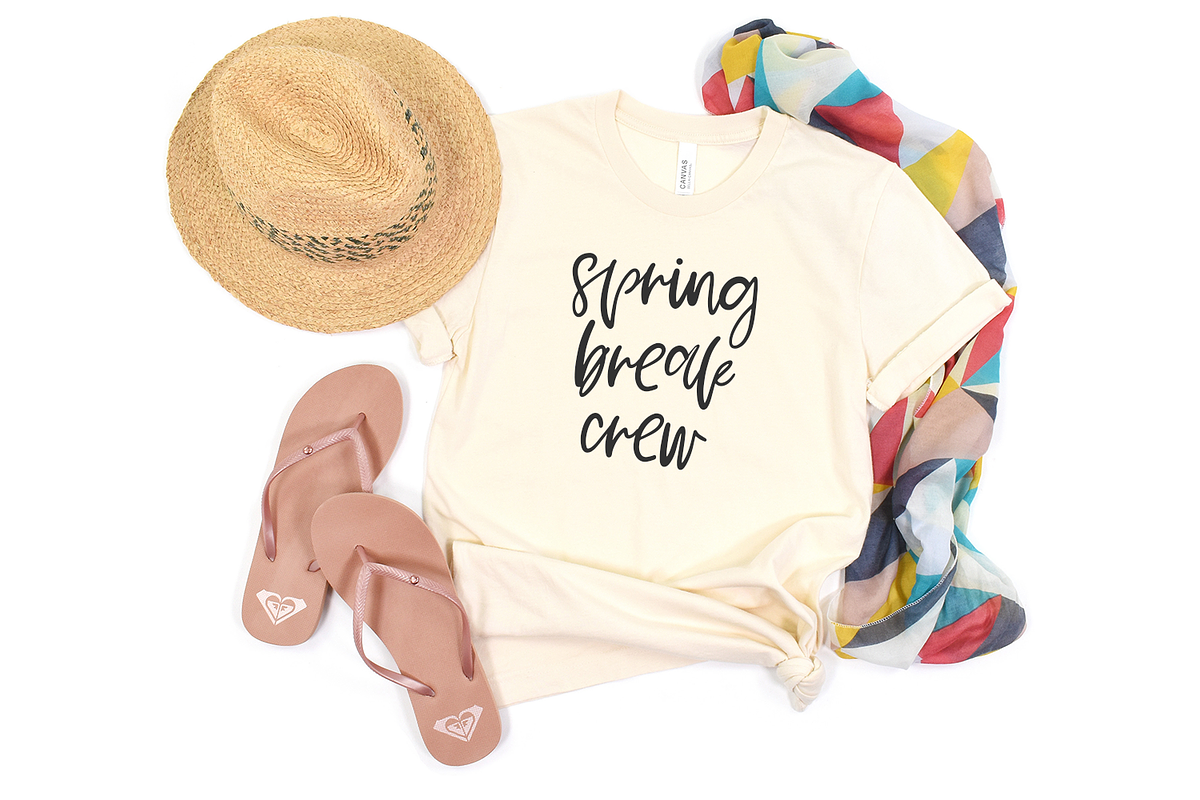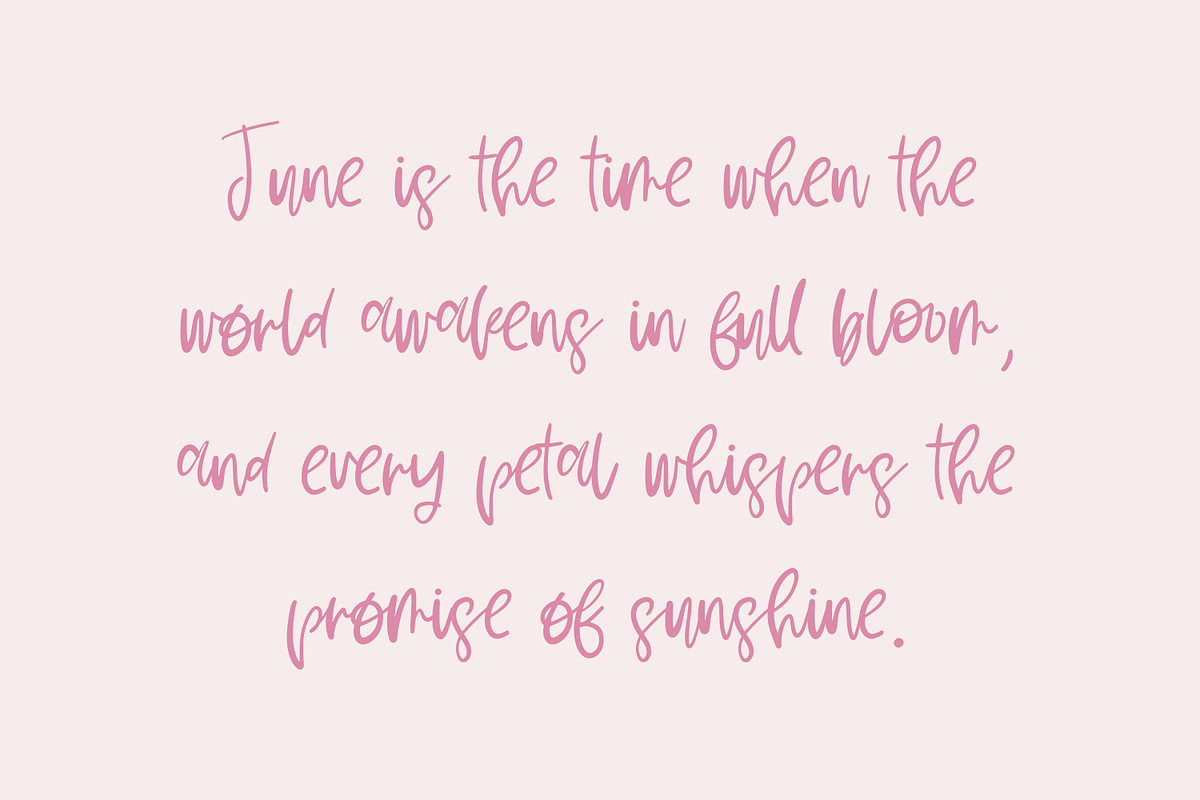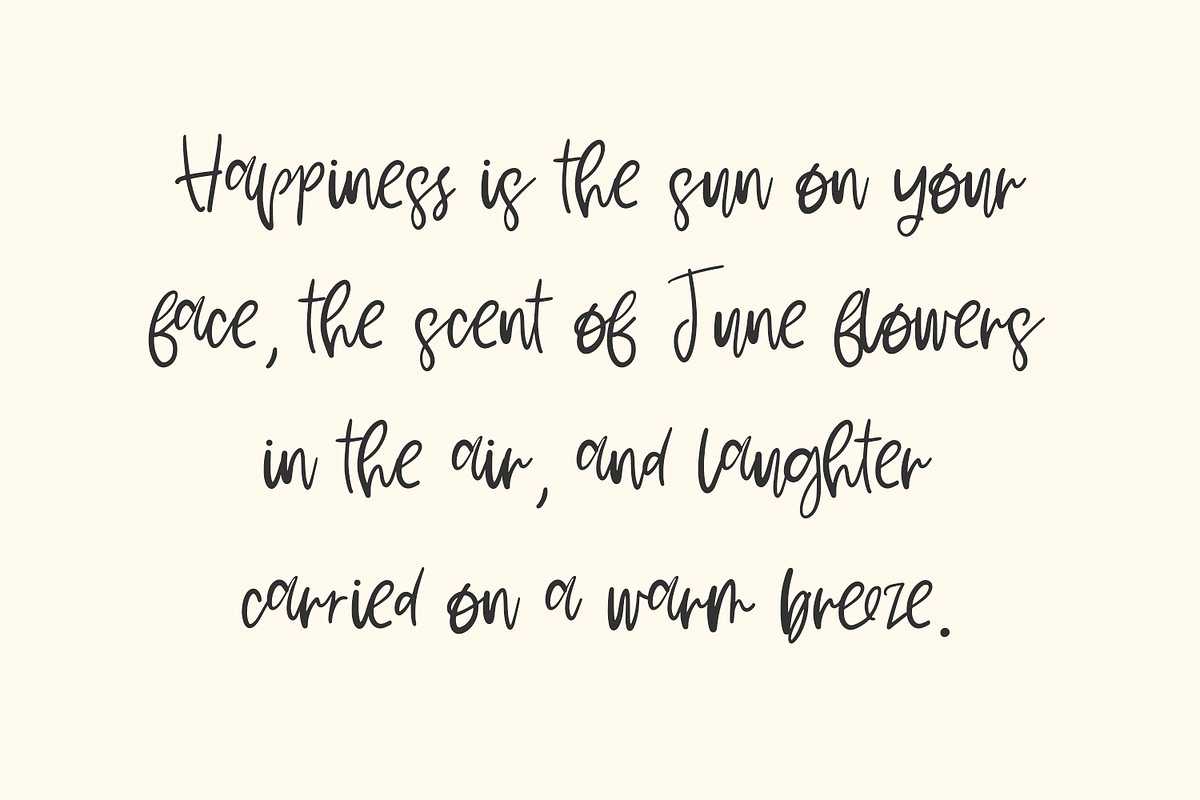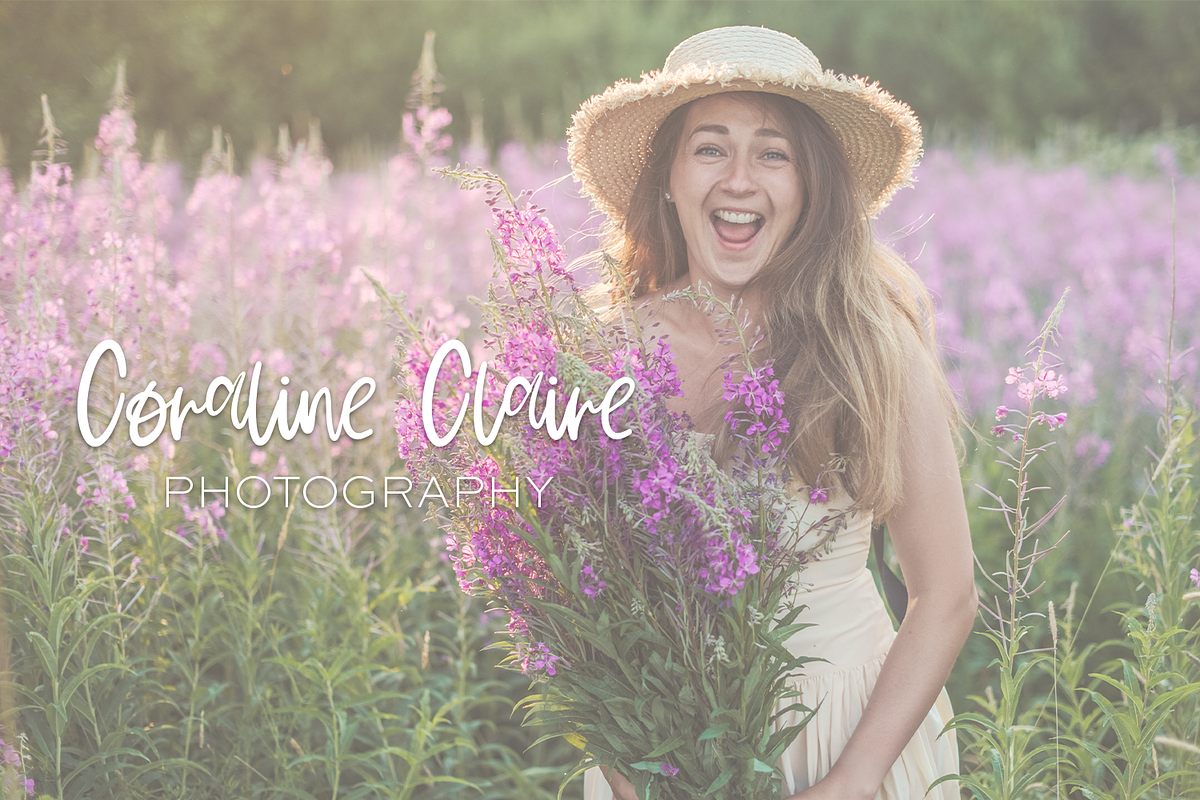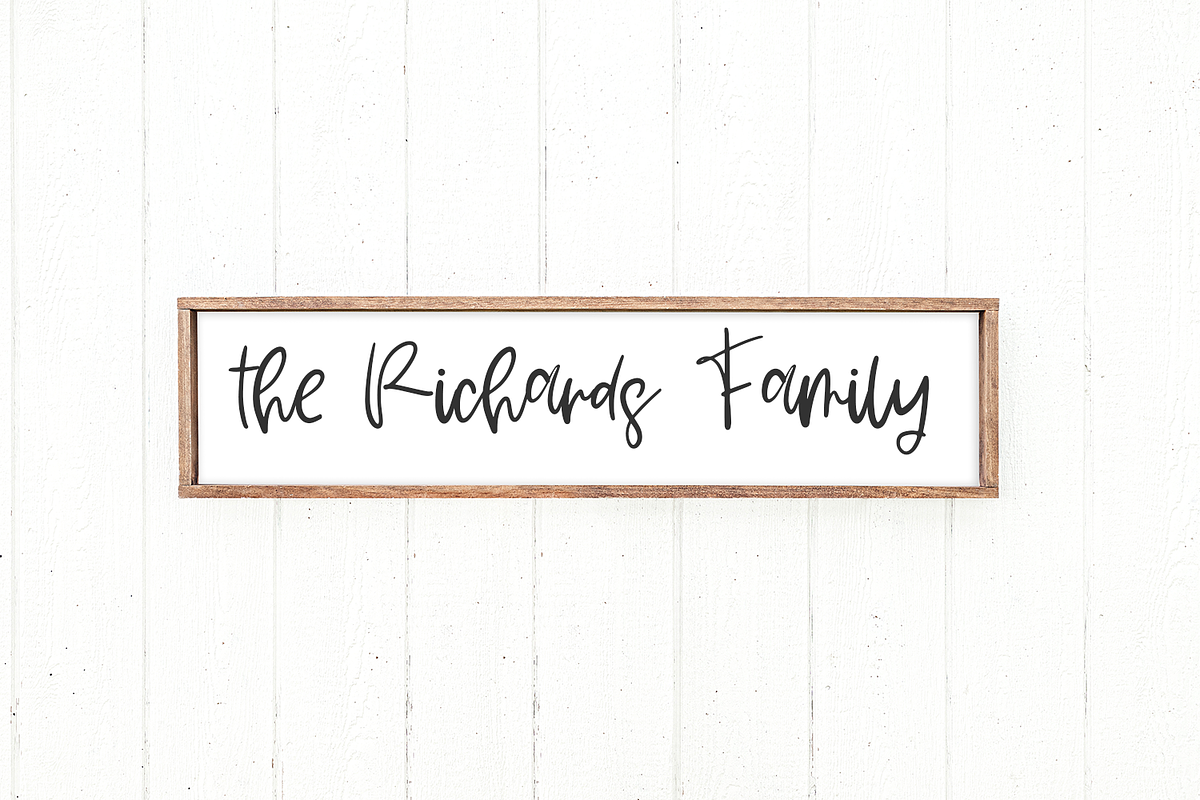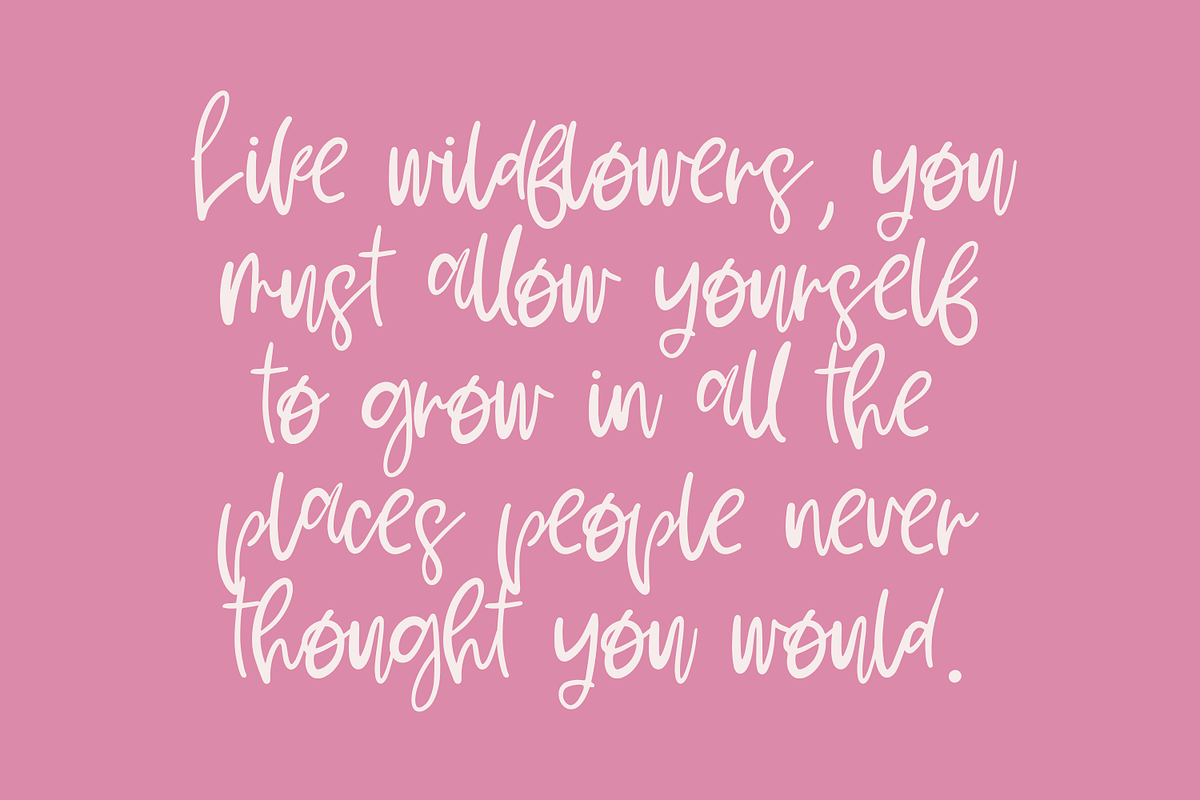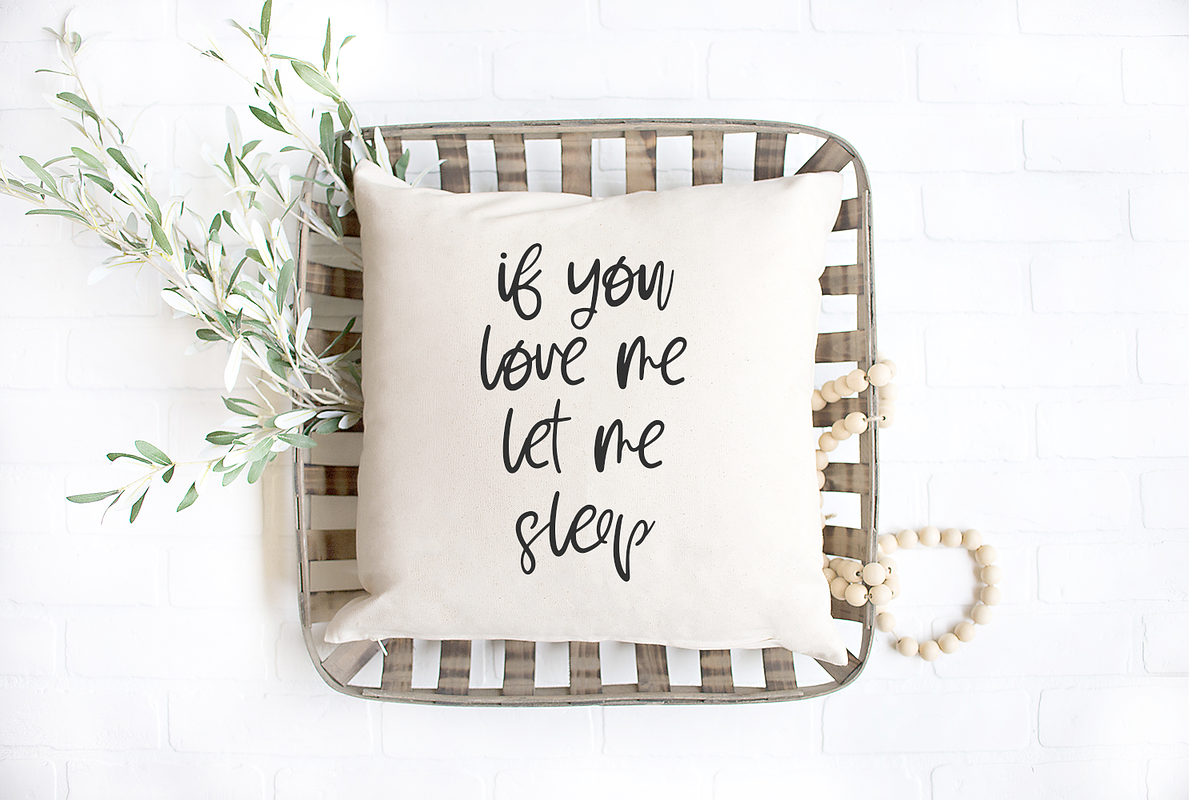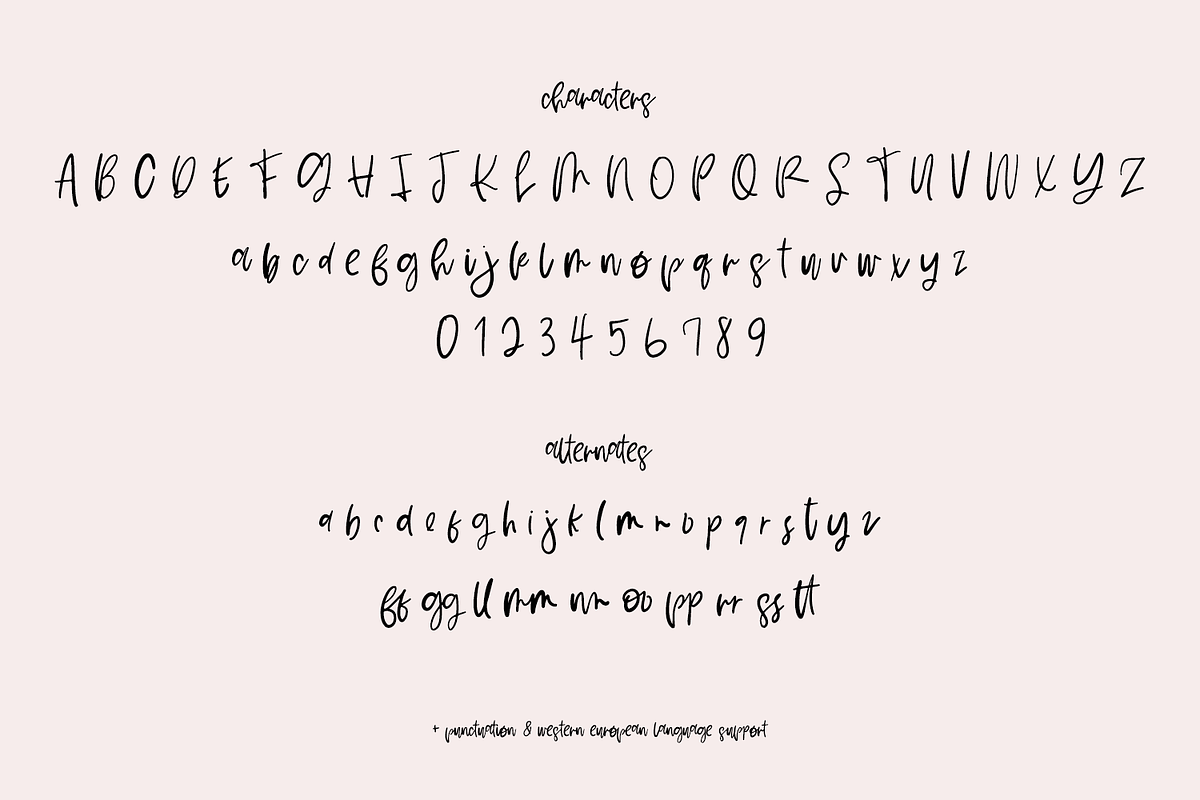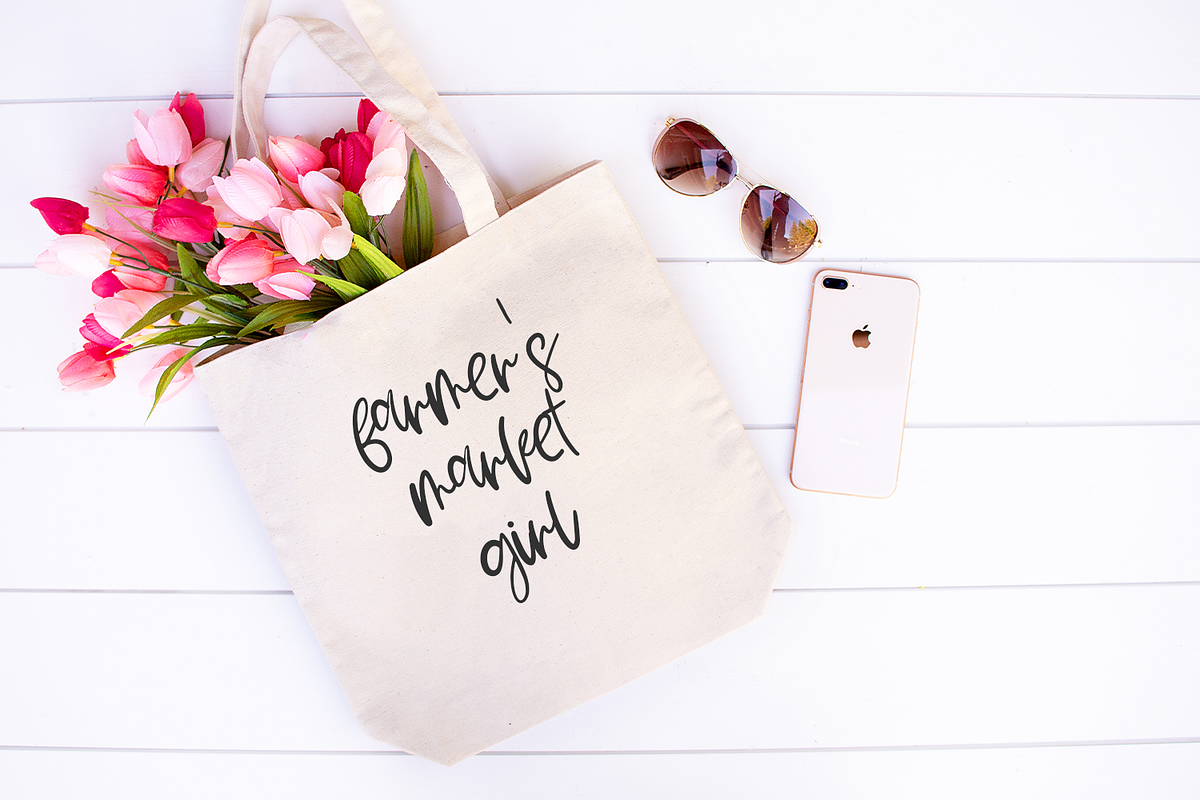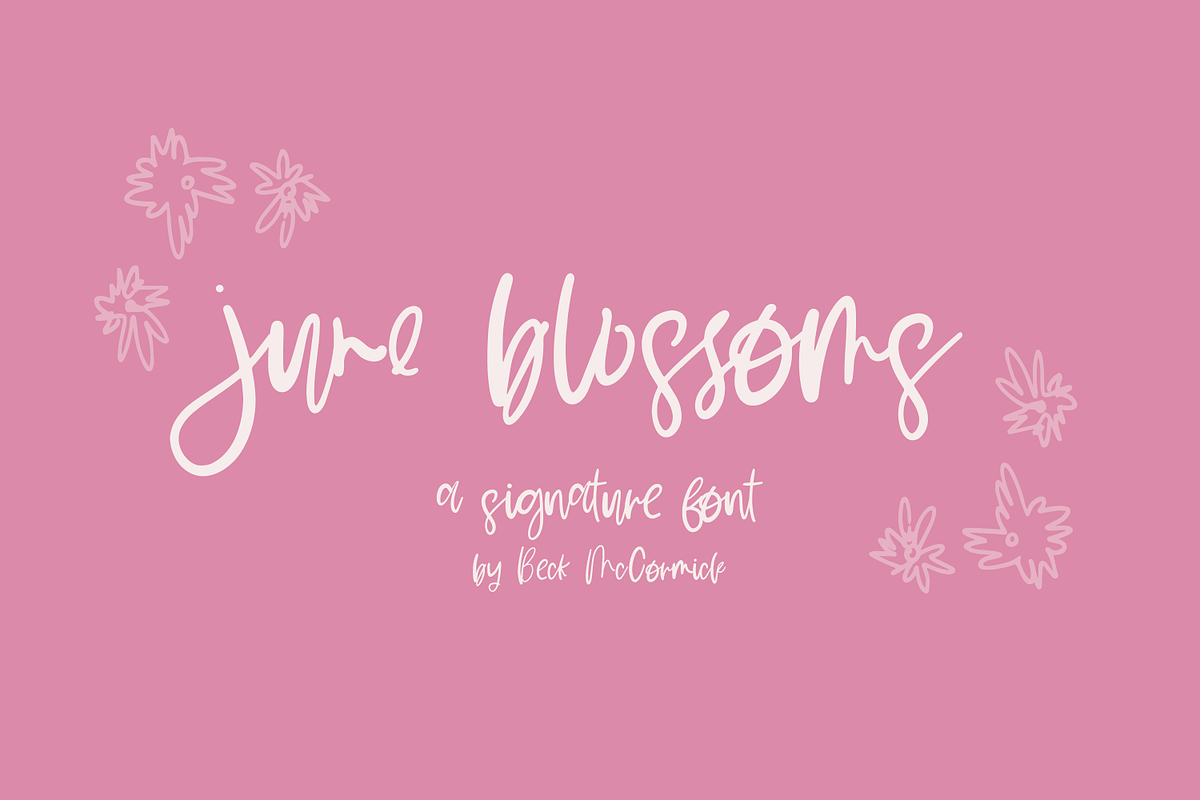
June Blossoms Script
Introducing June Blossoms, a handwritten font. Its contemporary aesthetic makes it a perfect fit for effortlessly designing logos & branding, elegant paper products like wedding invitation suites, or for displaying content on your website. June Blossomโs handwritten appeal makes it a fantastic fit for signature-style logo designs. June Blossoms can also be used for other print design like magazines and flyers or printed marketing materials. This font can also be used for digital marketing materials and social media items!
June Blossoms includes:
- full upper + lowercase characters
- numbers + punctuation
- 22 alternate characters - a, b, c, d, e, f, g, h, i, j, k, l, m, n, o, p, q, r, s, t, y, z
- 10 ligatures - ff, gg, ll, mm, nn, oo, pp, rr, ss, tt
- Western European language support - English, French, Spanish, Portuguese (Brazil), Portuguese (Portugal), Italian, German (Germany), German (Austria), Dutch, Danish, Swedish, Norwegian (Bokmรฅl and Nynorsk), Finnish, Icelandic, Irish, Welsh